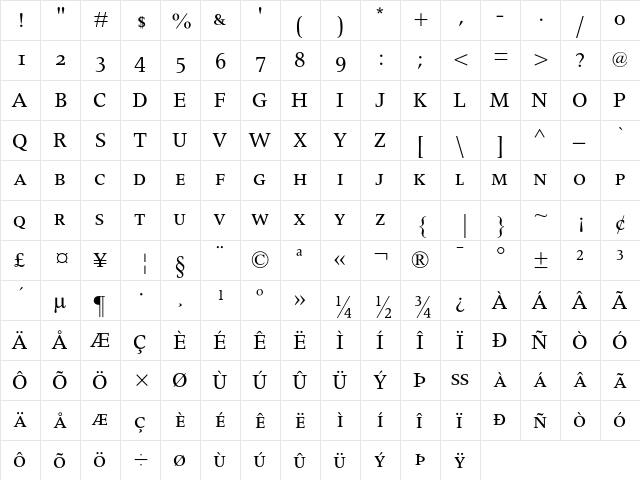
Apollo MT Small Caps & Oldstyle Figures
Design Context for Apollo MT Typeface
Apollo MT brings classic typographic sensibility to the table — its serifs and measured letterforms reflect centuries of print heritage.
Pro Tip: Set Apollo MT with slightly loose tracking in headlines to let each letterform's detail read clearly at display sizes.